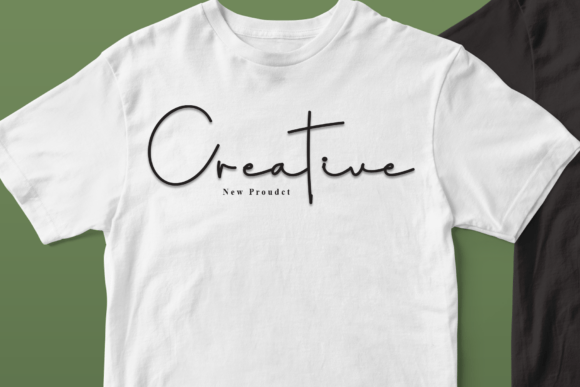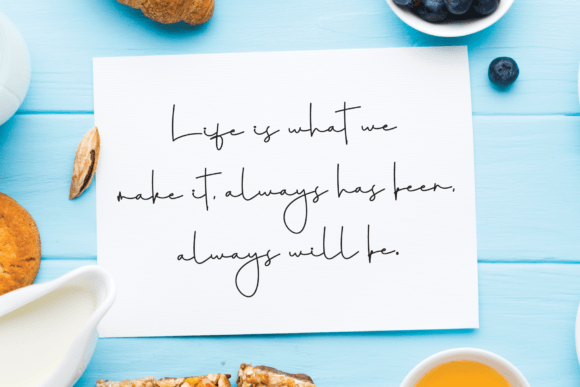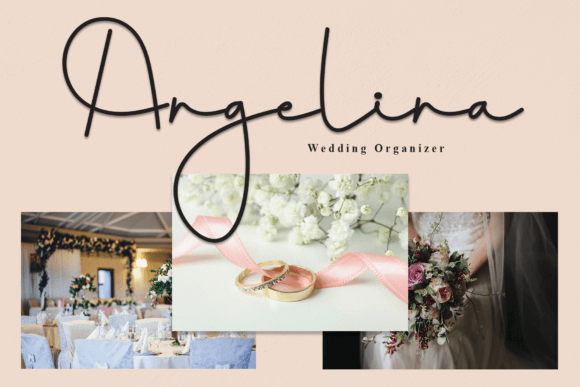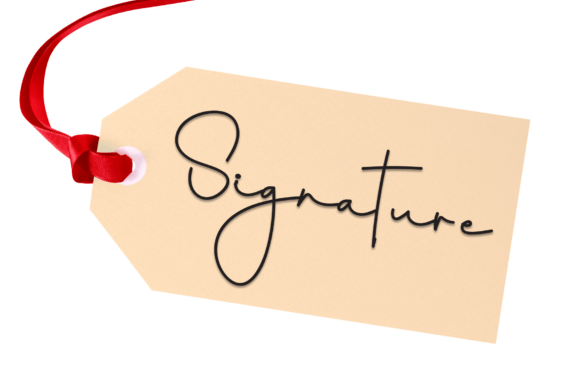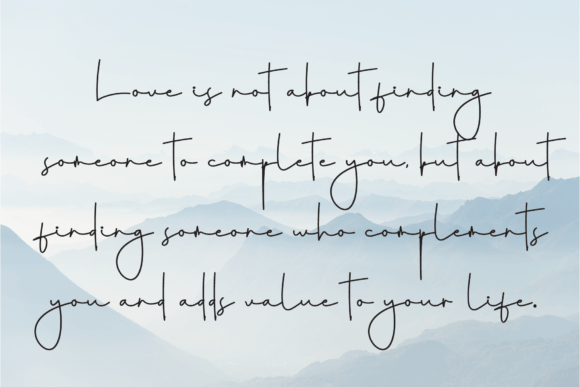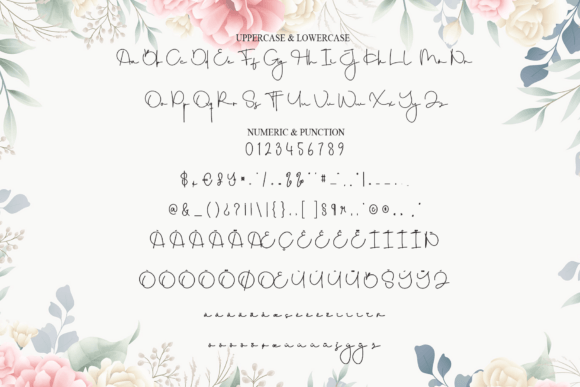
The Perfect Script: Unlocking the Beauty of Greatings Font
Have you ever sat down with a blank sheet of paper and a pen, trying to put your creative thoughts into words? It’s that moment of pure inspiration when the perfect font comes to mind – flowing, elegant, and full of personality. For designers, finding the right font can make all the difference in bringing a design to life.
Enter Greatings Font, a stylish script font that’s perfect for adding a personal touch to your designs. Whether it’s an invitation, a logo, or a greeting card, Greatings Font is the perfect choice for creating a warm and inviting atmosphere. Its flowing letters evoke a sense of hand-drawn elegance, making it a valuable addition to any designer’s toolkit.
Greatings Font Key Features
- Unique Characteristic: Features a unique, hand-drawn style with subtle flourishes and ornaments, adding a touch of elegance to any design.
- Language Support: Supports a wide range of languages, including Latin, Cyrillic, Greek, and many others, making it suitable for global applications.
- Font Weight: Offers 5 font weights (Light, Regular, Medium, Bold, Black) to provide flexibility and control over the text’s visual impact.
Designer Review: Greatings Font
As a designer, I was excited to try out the Greatings Font, but my experience was a mixed bag. Here’s what I liked and disliked:
- Unique flair: Greatings Font has a distinctive look that sets it apart from more common fonts. Its quirky charm can add personality to a design.
- Legibility: The font is relatively easy to read, even at smaller font sizes.
- Consistency issues: The font’s irregularities can make it difficult to use consistently across different elements and sizes.
- Lack of versatility: Greatings Font is best suited for casual or creative projects; it may not be the best choice for formal or professional designs.
While Greatings Font has its strengths, its limitations make it a niche choice for designers. If you’re looking for a unique, quirky font for a specific project, it might be worth considering. However, for more general or professional design work, you may want to look elsewhere.
Greatings Font is ideal for creating elegant and sophisticated designs. Use it for headings, titles, and body text to add a touch of elegance to your designs. You can also use it for creating invitations, greeting cards, and other print materials.